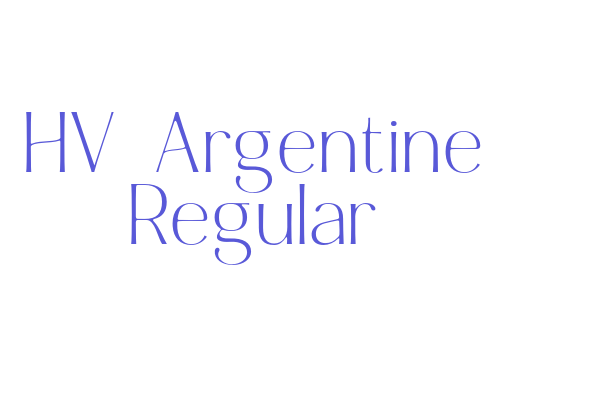
HV Argentine Regular is a sleek and modern sans-serif font designed by Ivy Xuyen Phan. Part of the HV Argentine font family, this Regular style is perfect for a wide range of design projects. With its clean lines and simple yet stylish appearance, it is ideal for creating professional and contemporary designs.
Font Name: HV Argentine Regular
Designer: Ivy Xuyen Phan
Font Family: HV Argentine